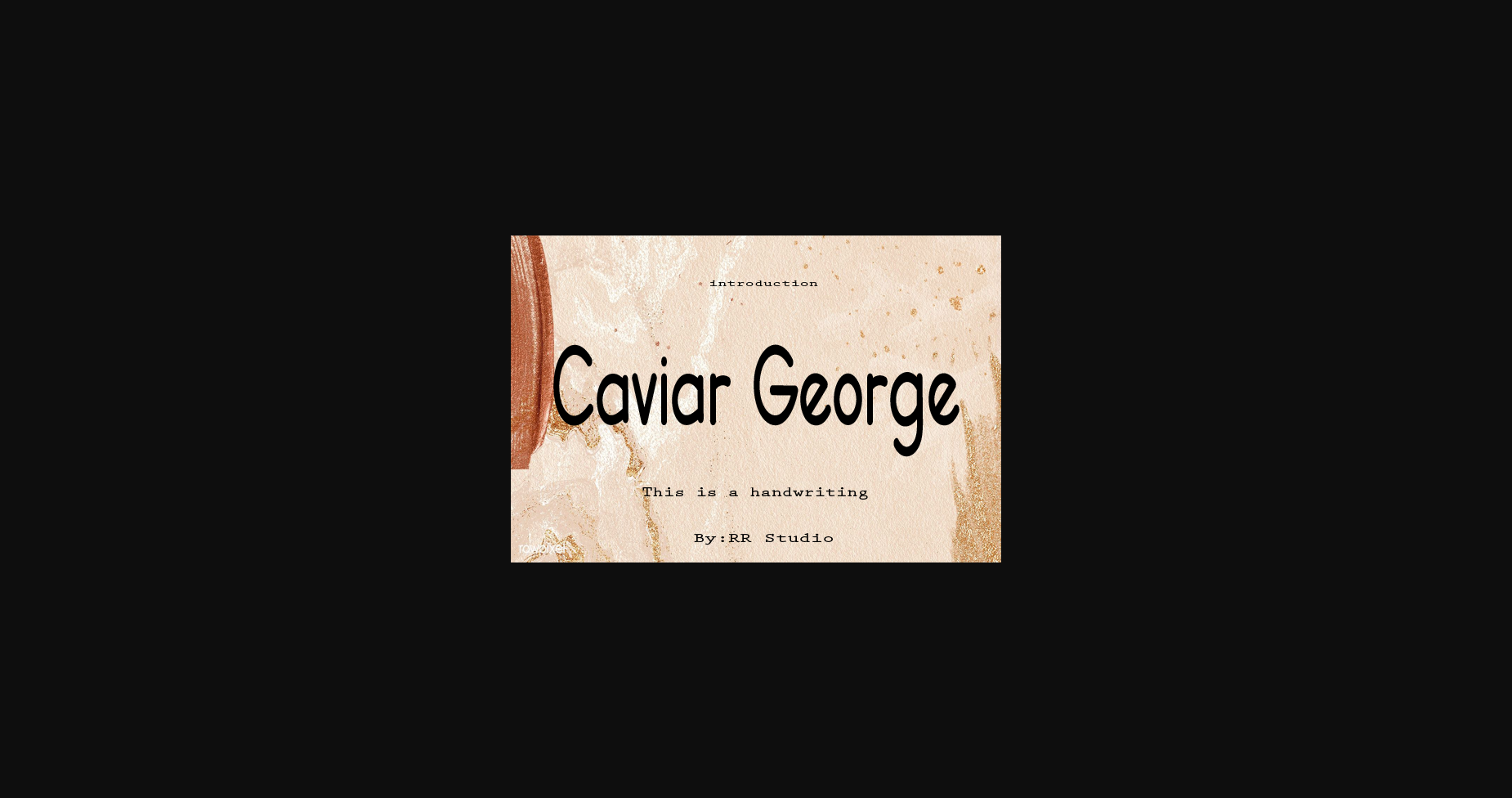
About Caviar George Font
Caviar George is a clean and adaptable sans serif font. It looks fun on wedding invitations, thank you cards, quotes, greeting cards, logos, business cards and every other design which needs a personalized touch.